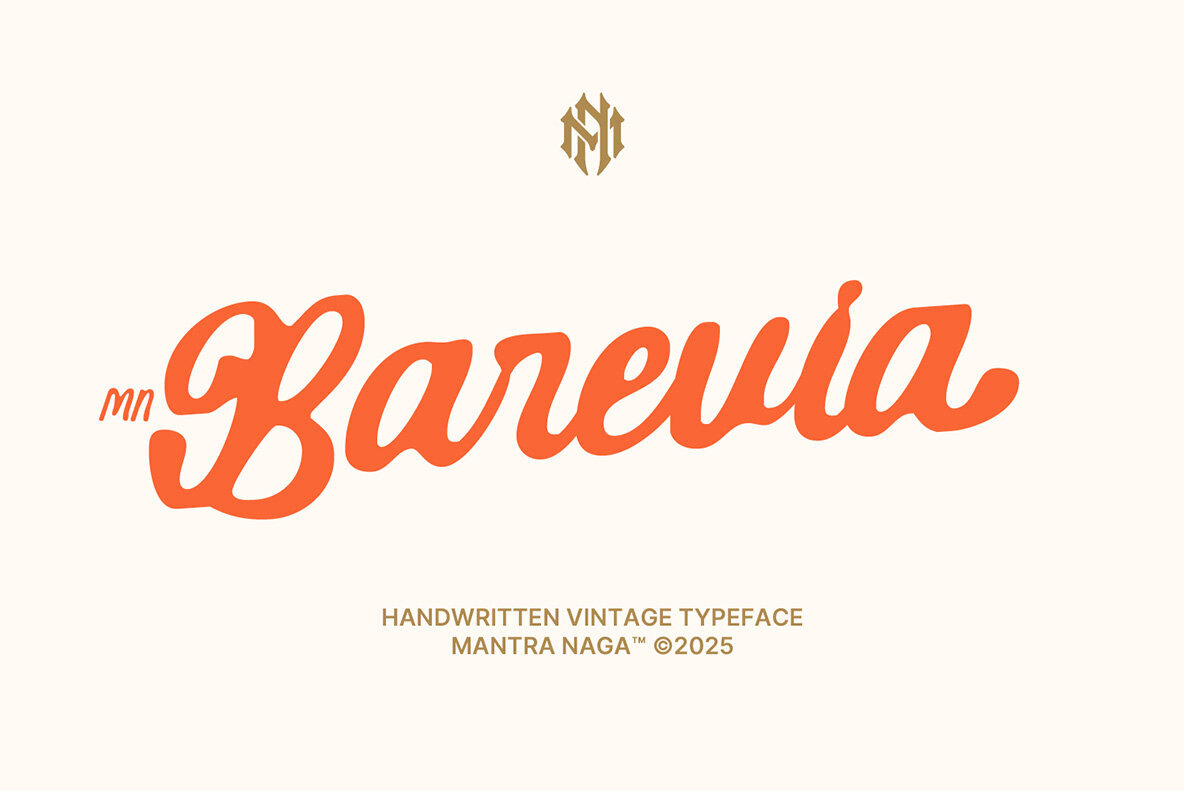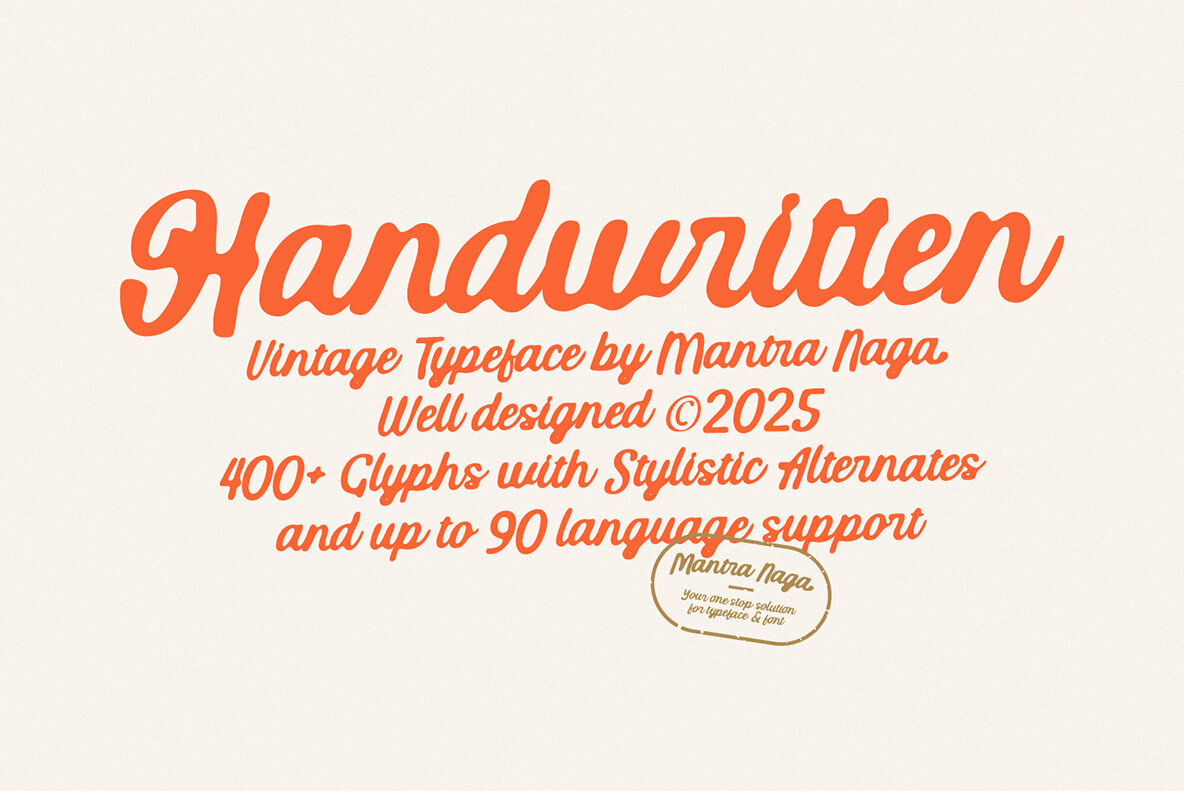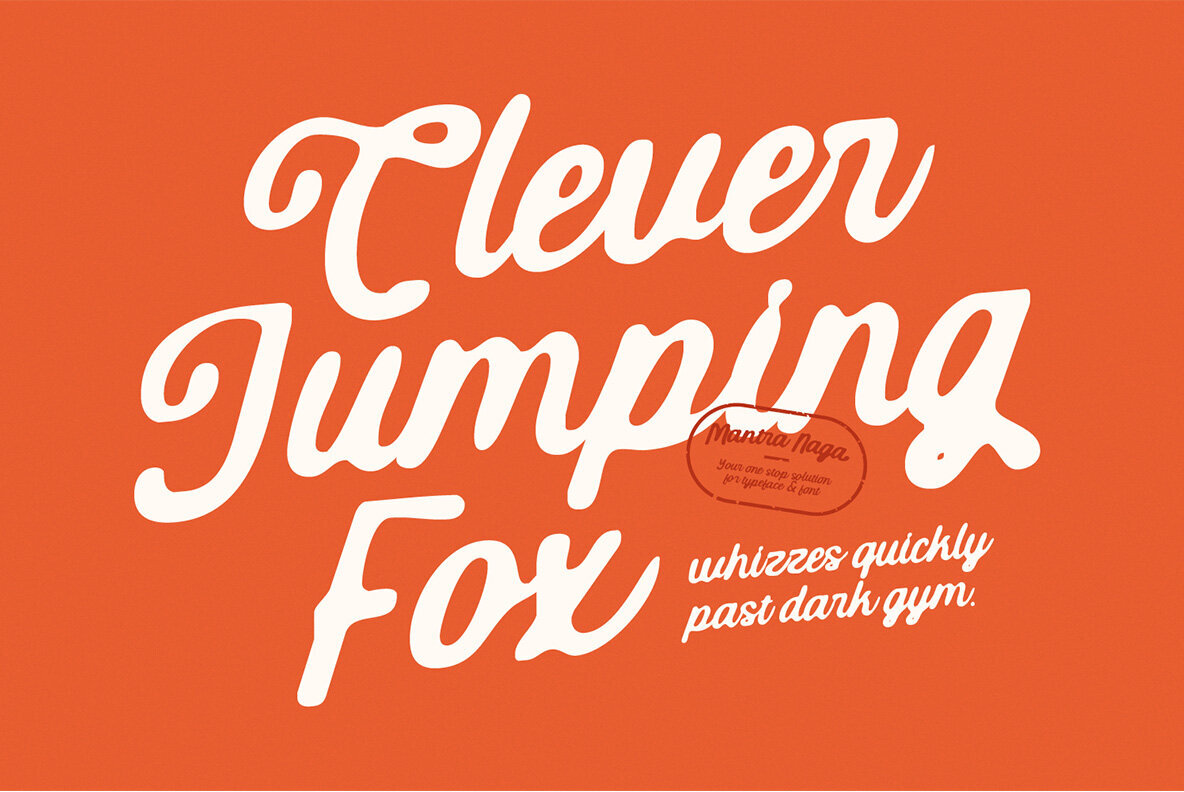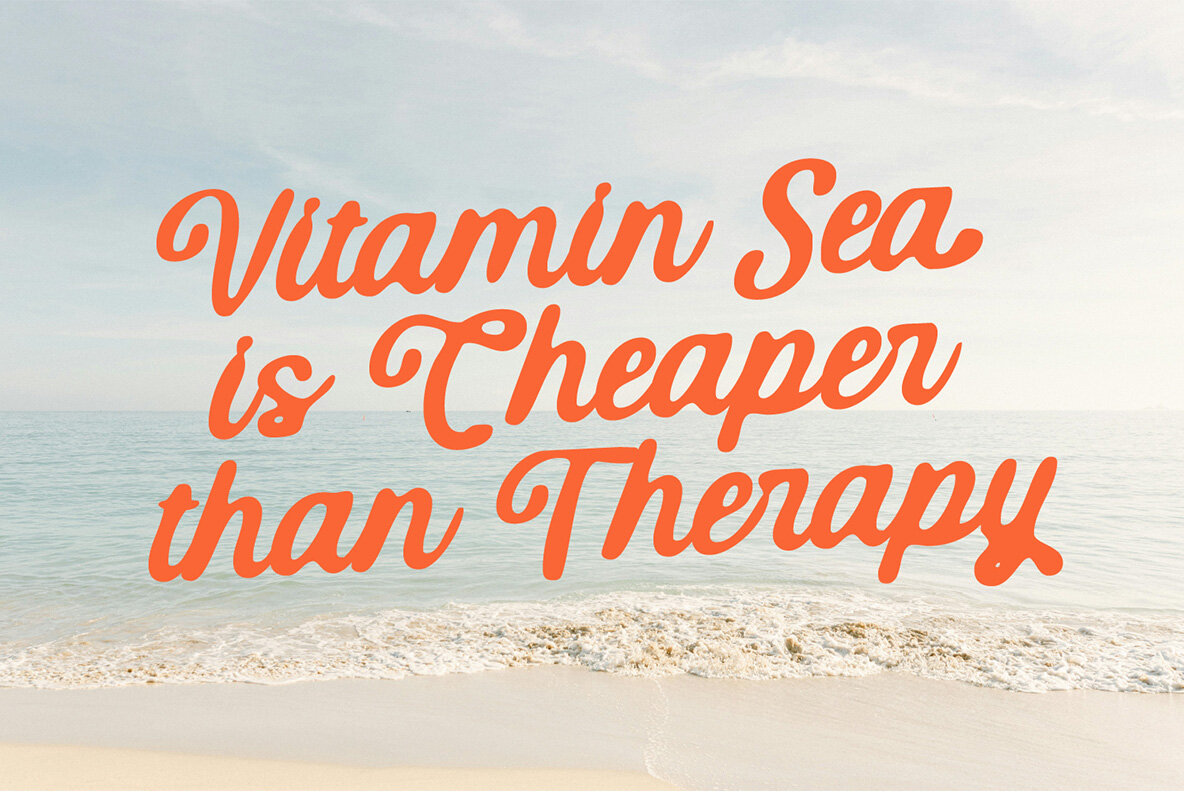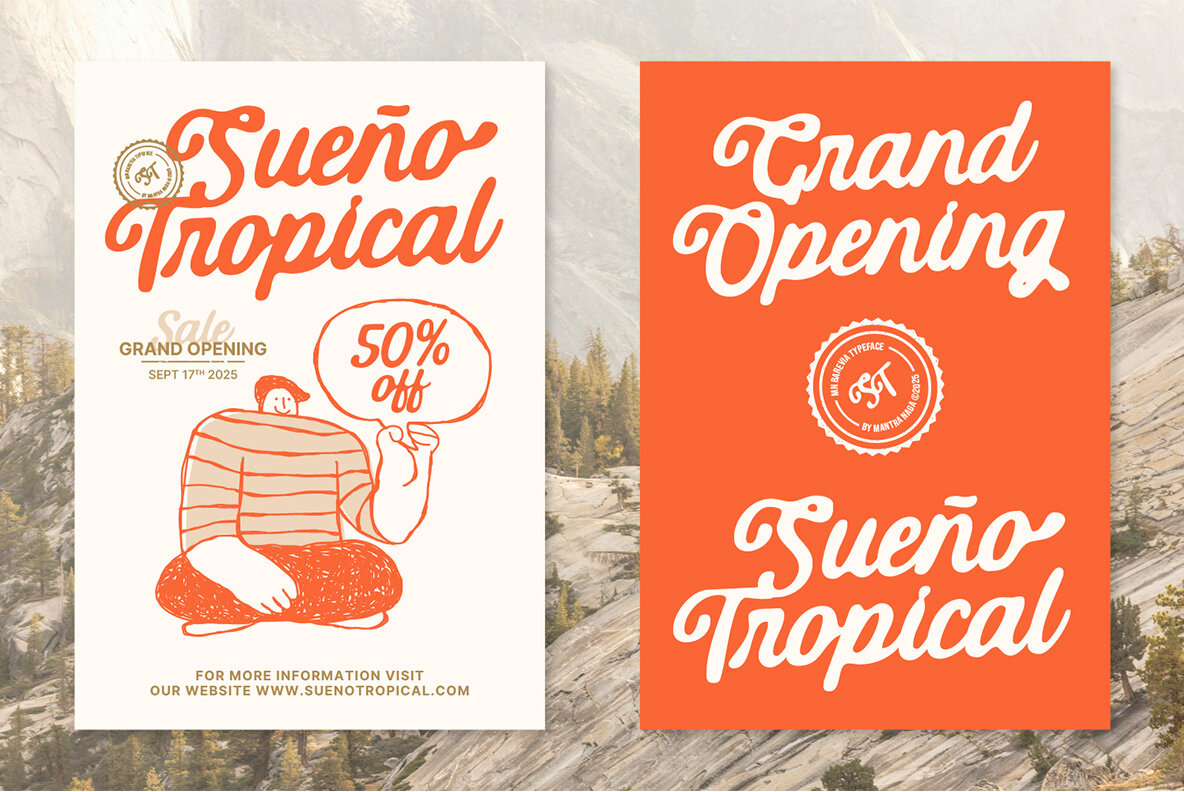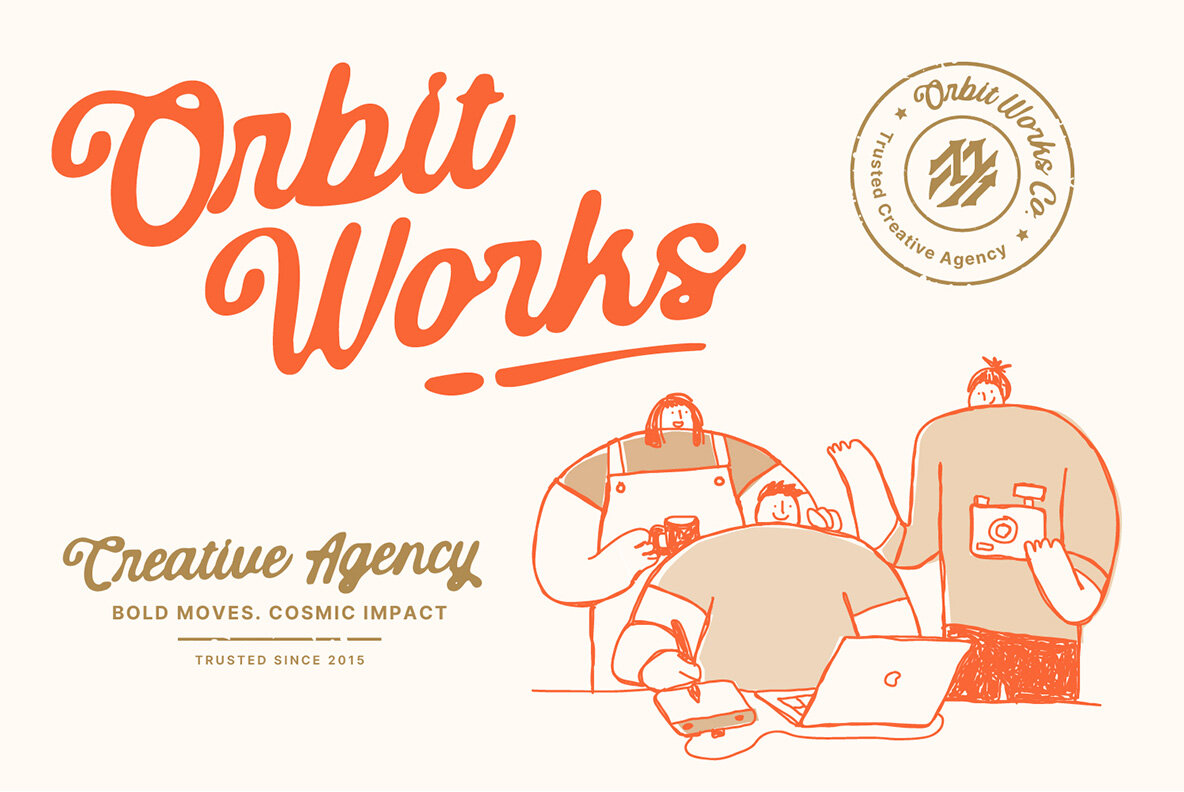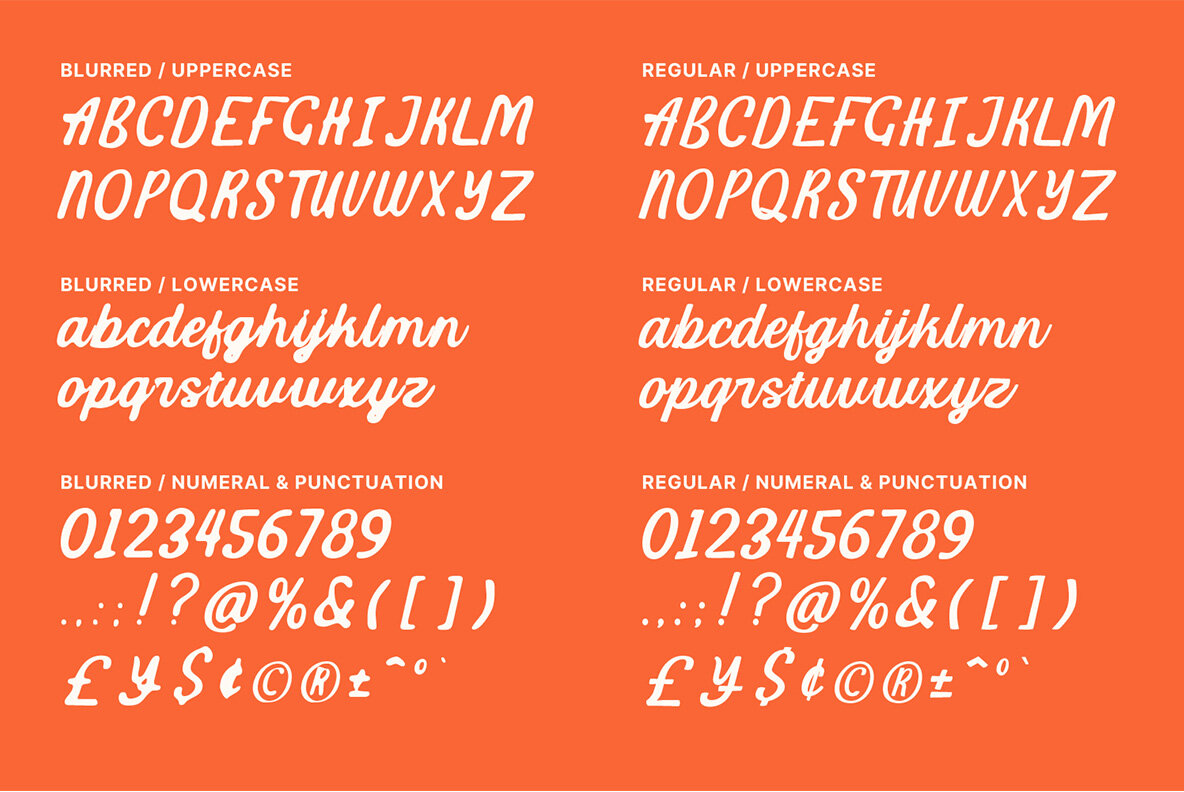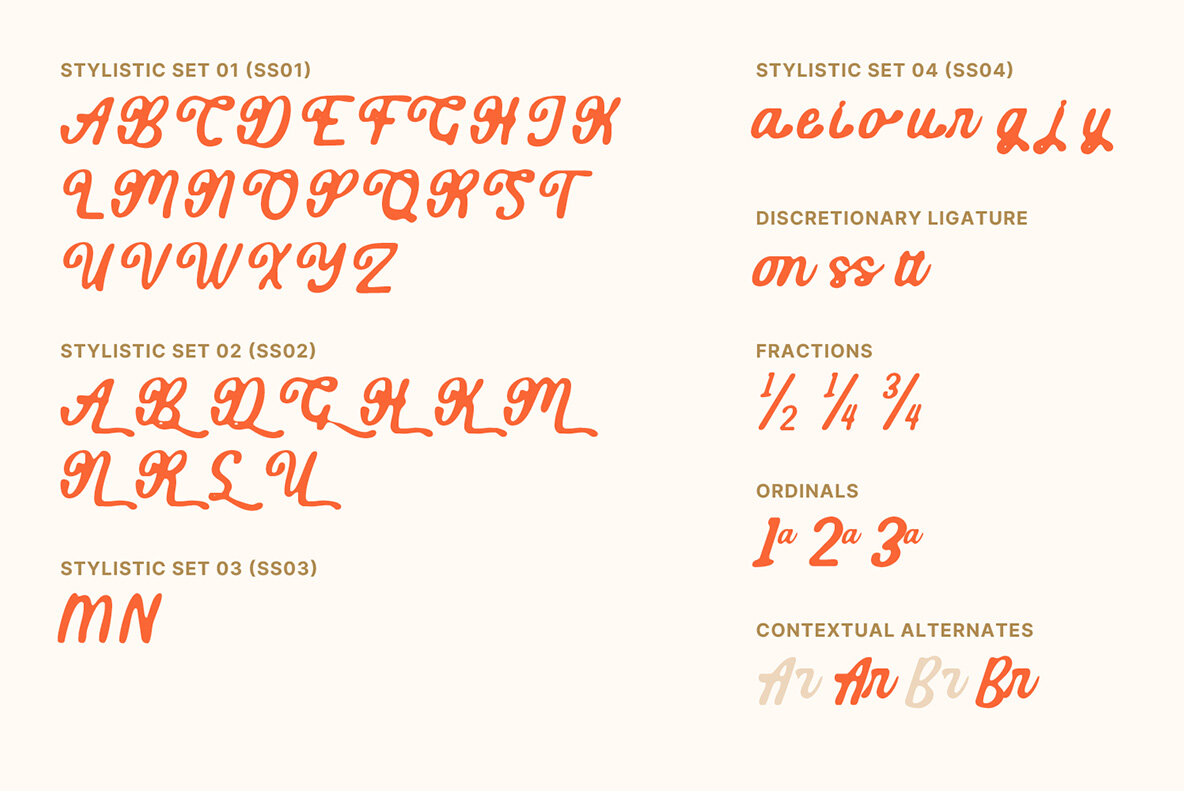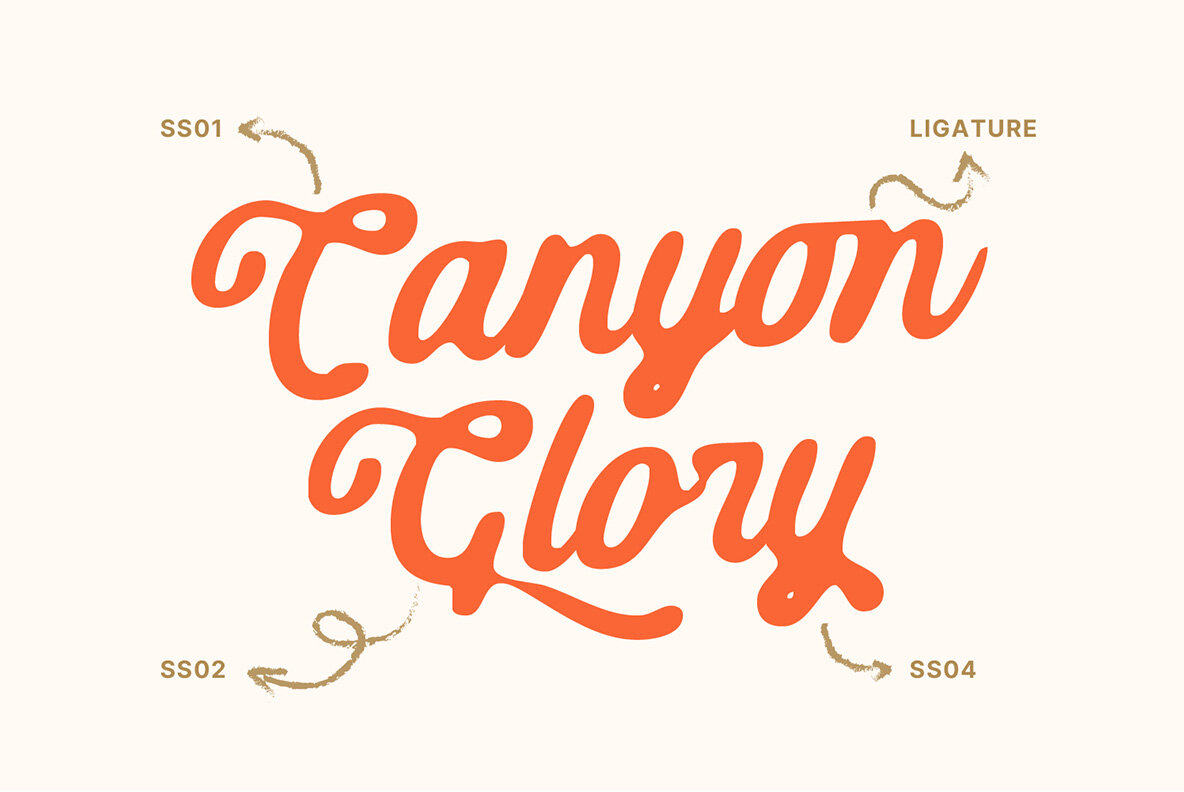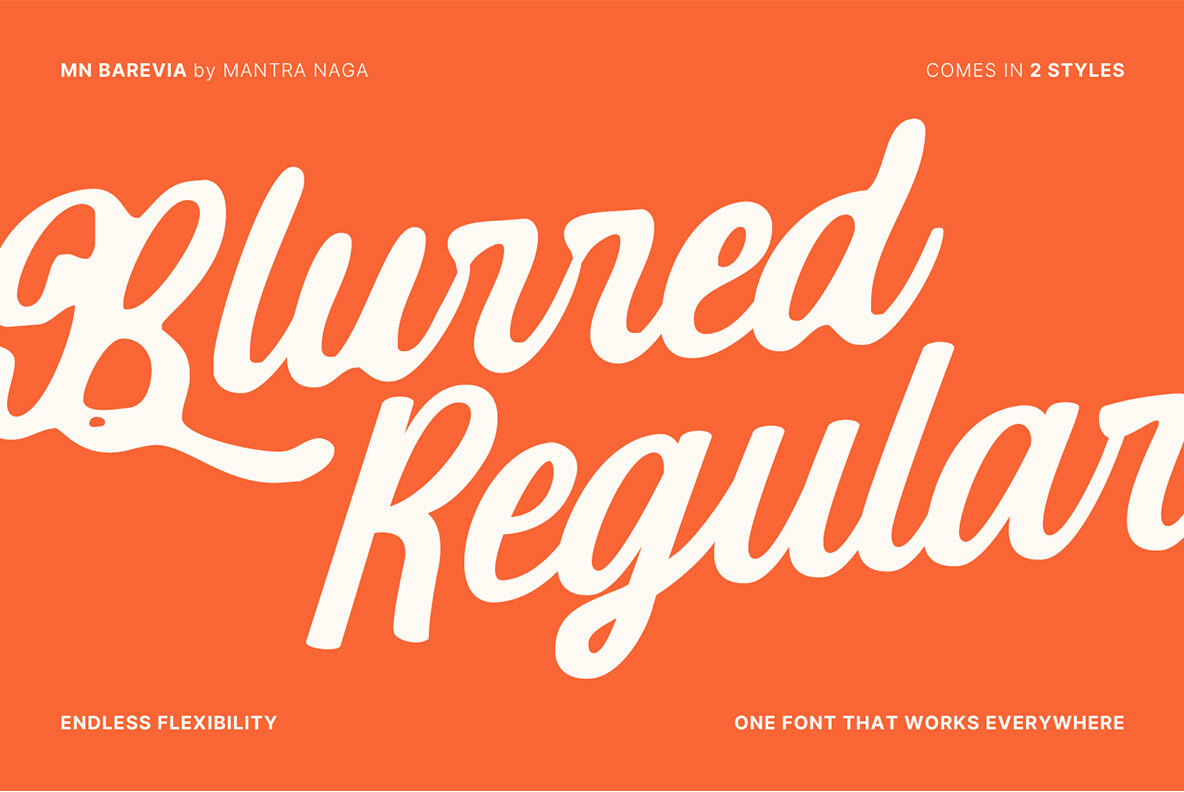
MN Barevia Font
MN Barevia captures the raw beauty of handwritten lettering, infusing a charming vintage style into your designs. Featuring imperfect strokes and blurred edges, this font evokes the authenticity of penmanship etched on aged paper, making each character feel remarkably organic. Diverse Style Options Ideal for vintage branding, nostalgic posters, and wedding invitations, MN Barevia imbues projects with a handcrafted warmth. Its natural imperfections create a strong sense of character and storytelling, making every design not just visually appealing, but also rich in narrative depth.MN Barevia: Capturing the Essence of Handcrafted Typography